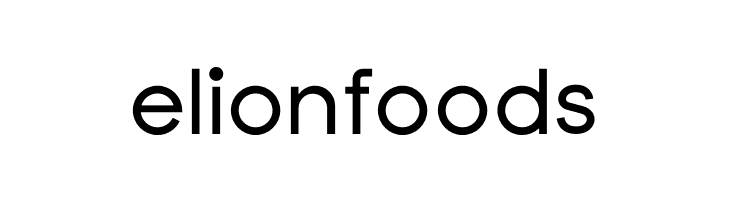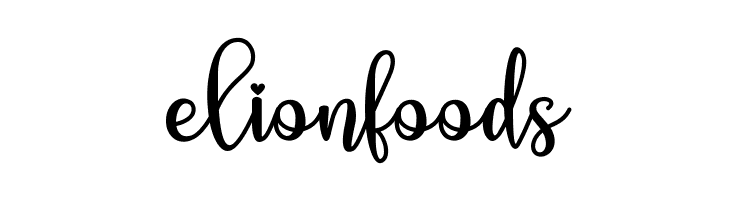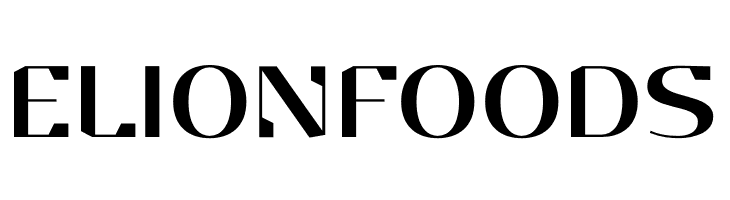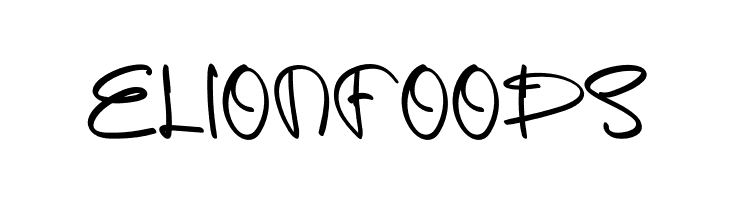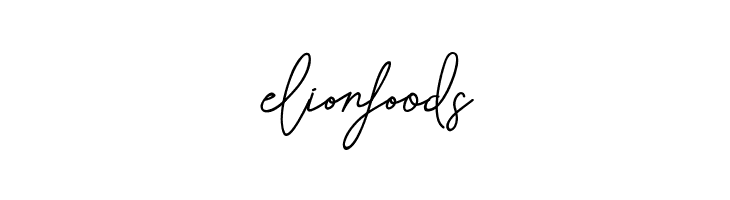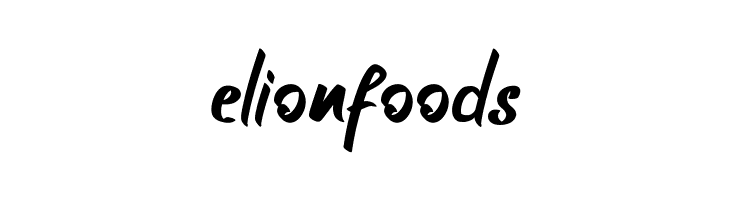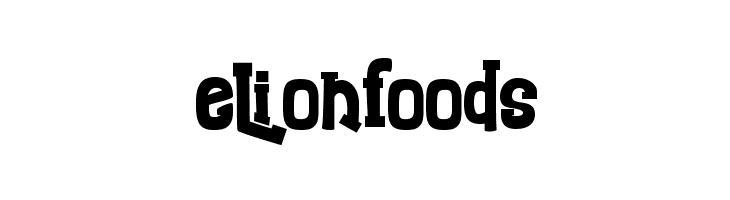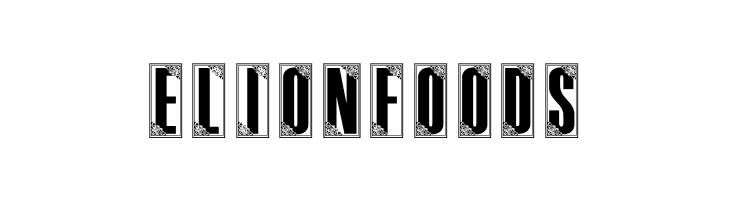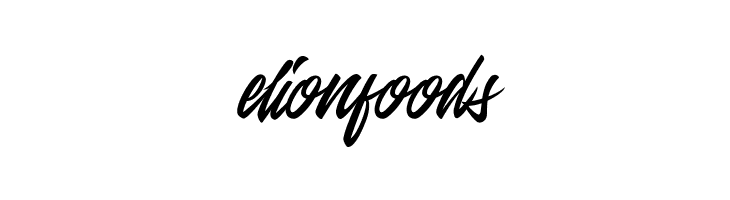
A playful and expressive handwritten font with bold, fluid strokes.
A bold, playful font with dynamic slanted characters and creative styling.
A playful, handwritten font with a casual and dynamic style.
A playful and elegant script font with a handwritten touch.
A stylish, elegant script font with a modern handwritten feel.
A bold, flowing script font with a dynamic, handwritten style.
Bold, decorative font with framed characters and ornamental details.
A modern, geometric sans-serif font with uniform strokes and balanced spacing.
A bold, modern font with sharp angles and smooth curves, ideal for display use.